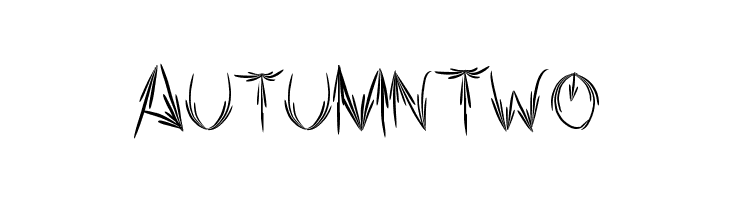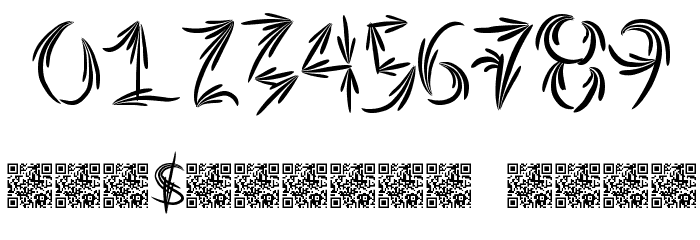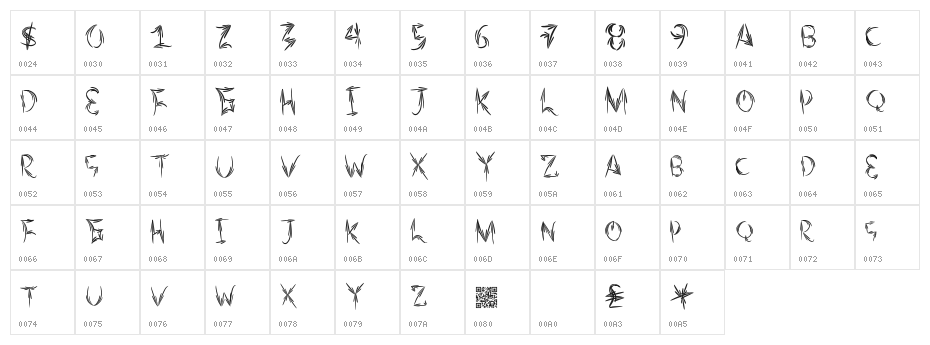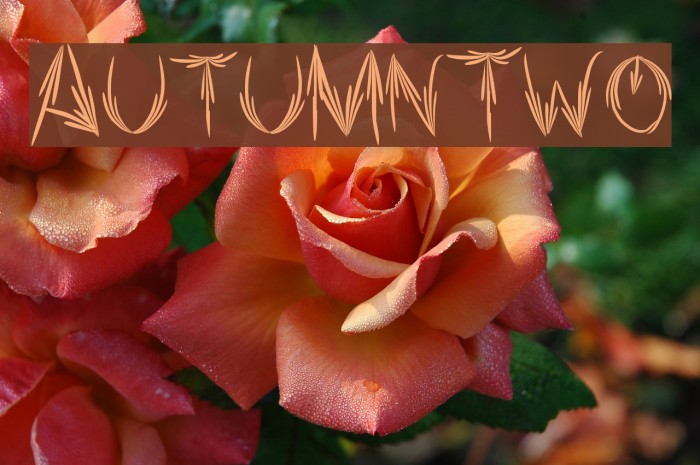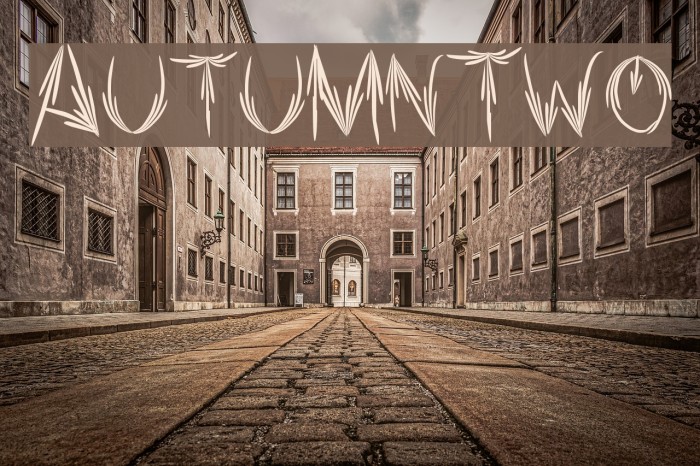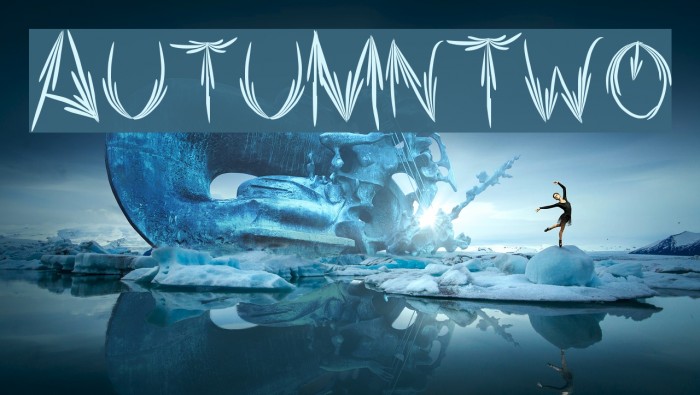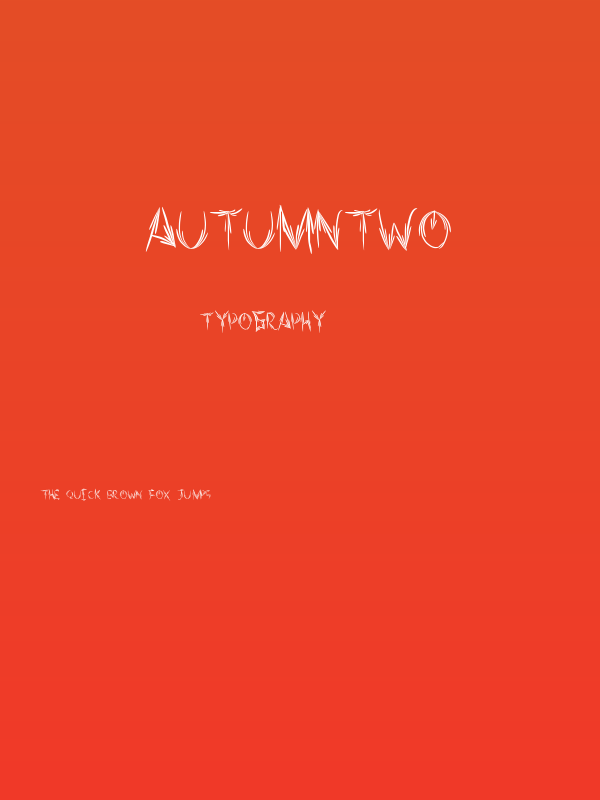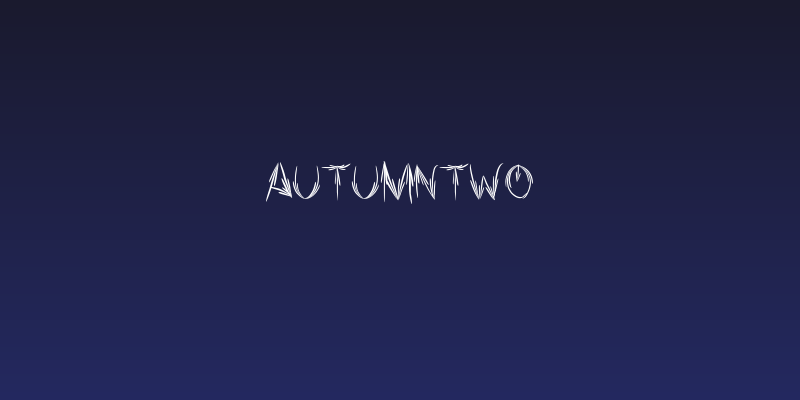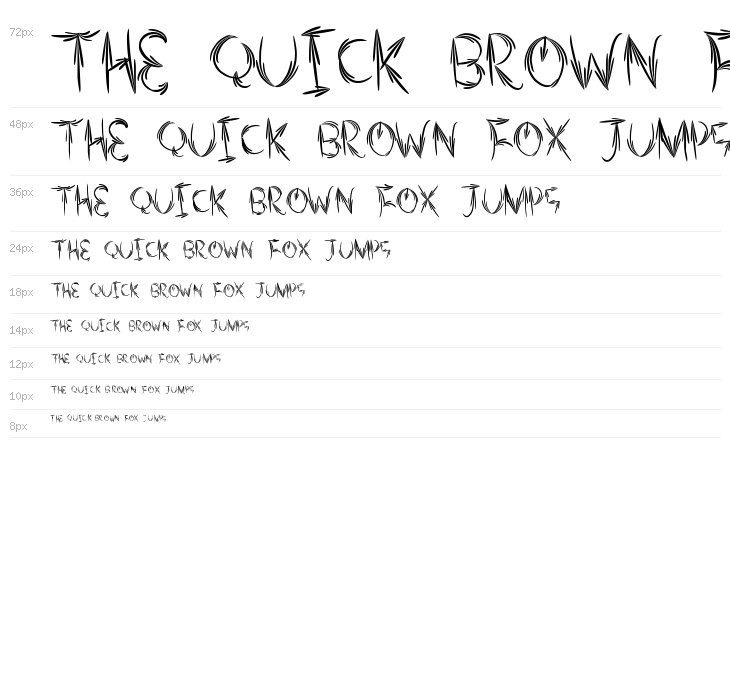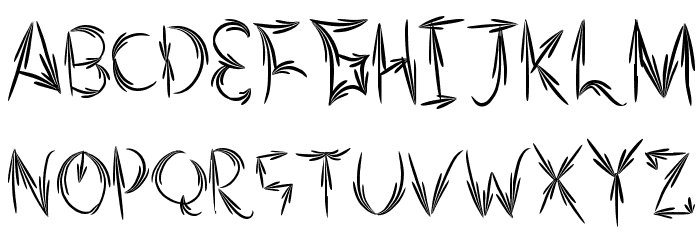
AutumnTwo Font
AutumnTwo Description
This font features a unique and bold design with sharp, angular edges and intricate detailing. Each character is crafted with a sense of movement, resembling arrows or tribal patterns, giving it a dynamic and edgy appearance. The uppercase and lowercase letters maintain a consistent style, while the numerals and special characters complement the overall aesthetic. This font stands out with its decorative flair, making it suitable for projects that require a strong visual impact.